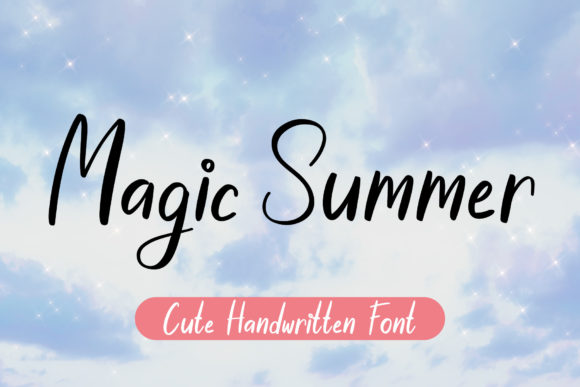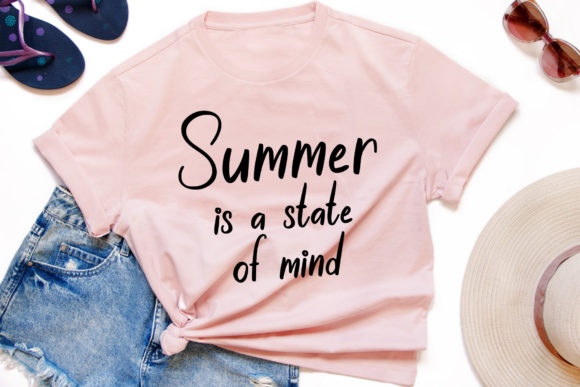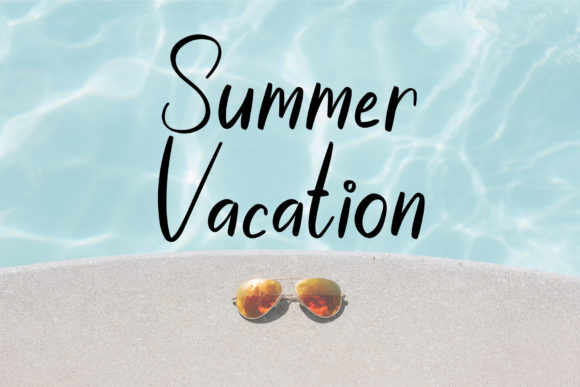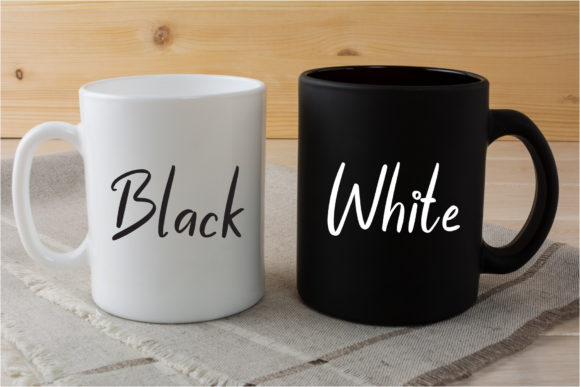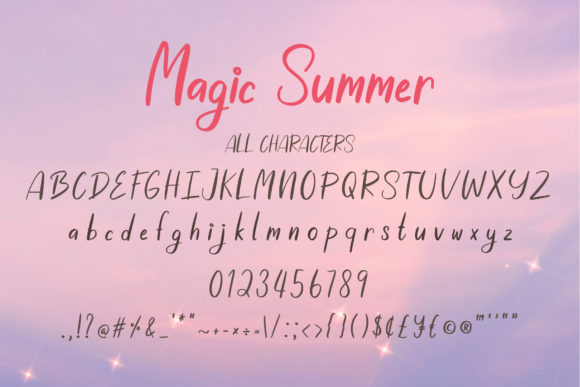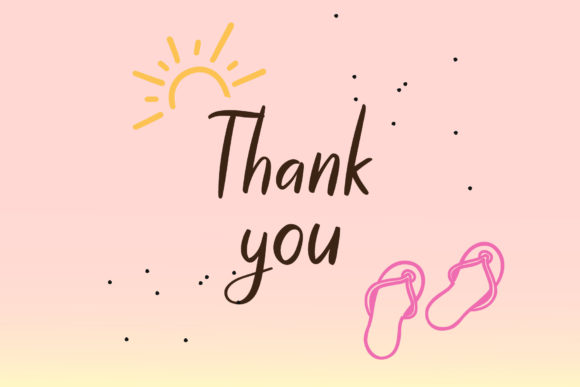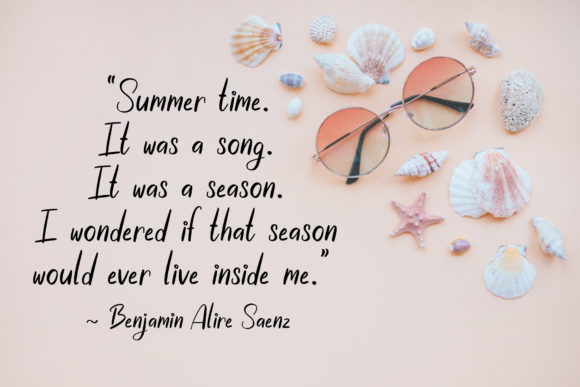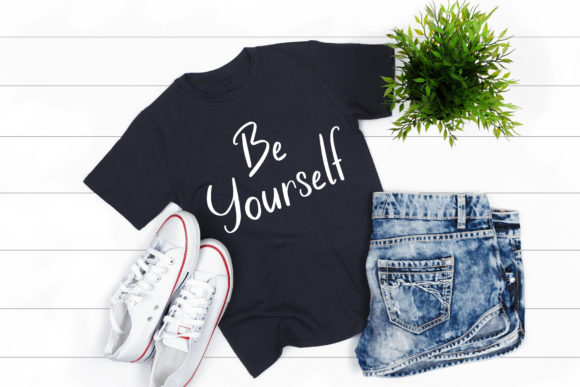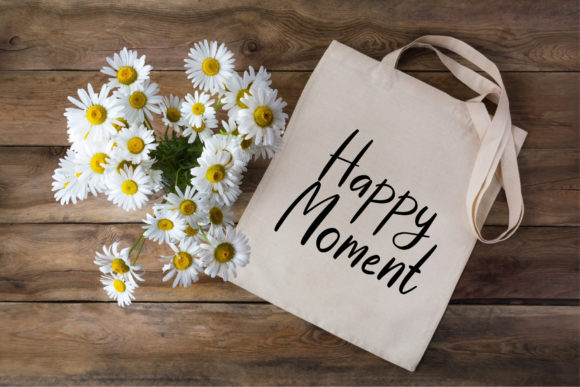
About Magic Summer Font
Magic Summer is a simple lettered and adaptable script font. Fall for its ravishing style and use it to create gorgeous wedding invitations, beautiful stationary art, eye-catching social media posts, and much more!